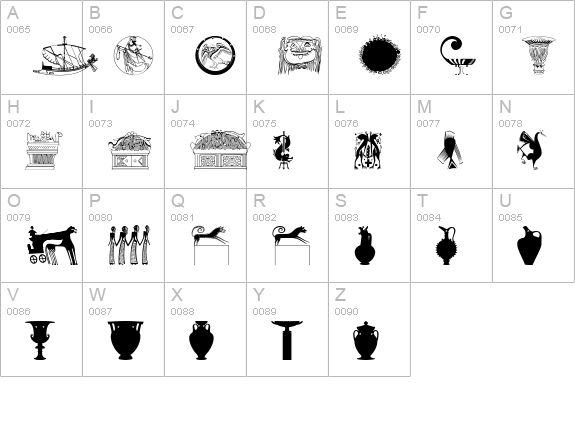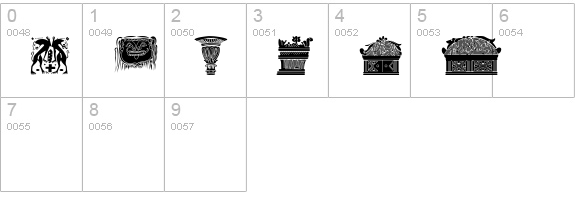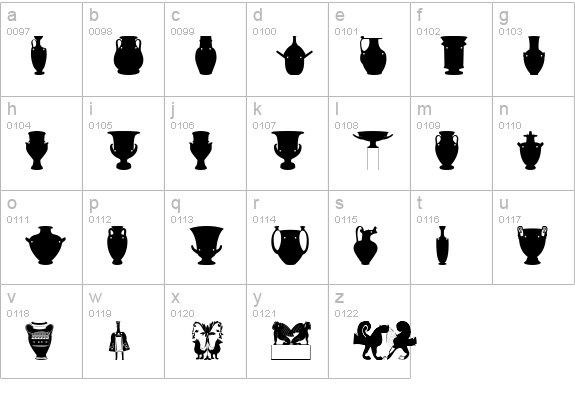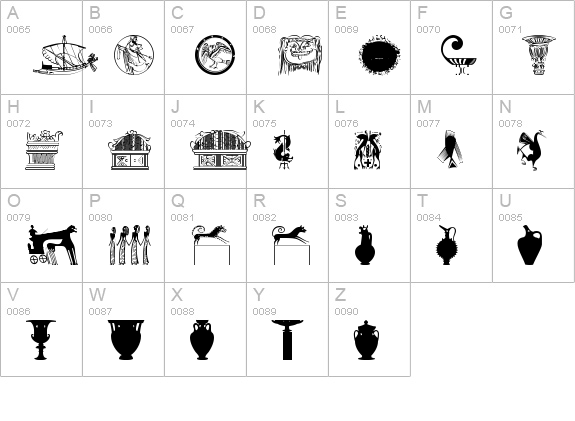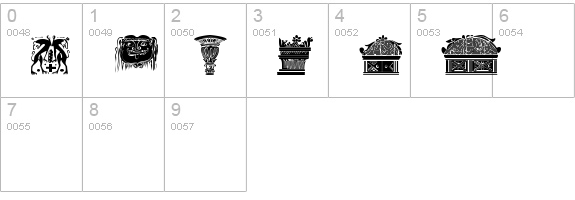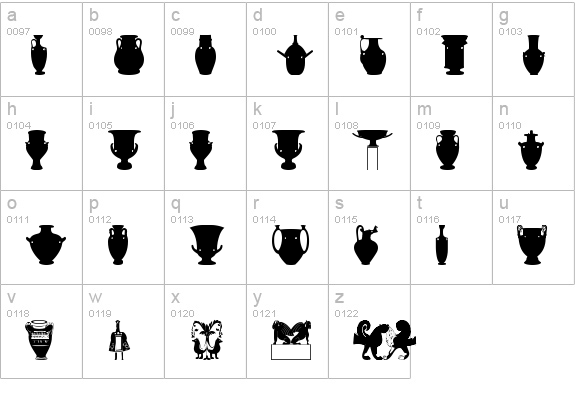
GreekArt Font Details
GreekArt font is a stunning typeface that beautifully captures the essence of ancient Greek art and culture. With its intricate details and elegant design, this font is perfect for adding a touch of classical sophistication to your projects. The graceful curves and bold lines of GreekArt evoke a sense of timeless beauty and refinement. What makes GreekArt even more appealing is that it is available for free download at FontsMarket.com. This means you can easily incorporate this exquisite font into your designs without any cost. Whether you are working on a historical project, a creative artwork, or a branding campaign, GreekArt font will bring a touch of classical elegance to your work. Embrace the beauty of Greek art and culture with GreekArt font, now freely available for download at FontsMarket.com. Elevate your designs with the timeless charm of this exquisite typeface and make a lasting impression on your audience.